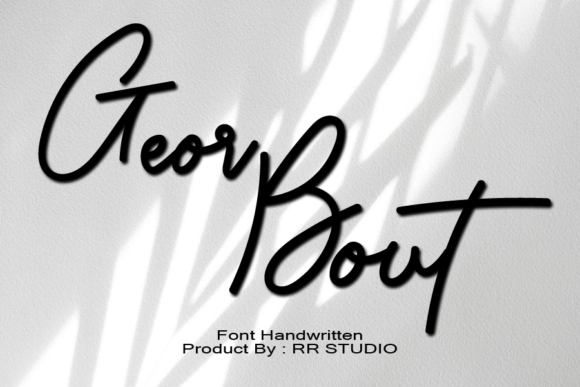
Indulge in the enchanting allure of Geor Bout, a script font that graces your designs with timeless elegance. Its meticulous craftsmanship, inspired by the fluidity of handwritten letters, adds a touch of authenticity to any project.
Escape the mundane and embrace the extraordinary with Geor Bout. Immerse yourself in its graceful curves and captivating ligatures, dancing across your creations like a symphony of ink. Whether you seek to craft an unforgettable logo, a captivating social media post, or a heartwarming invitation, Geor Bout becomes your trusted companion.
Let your imagination soar as you explore the endless possibilities Geor Bout presents. Its versatility knows no bounds, seamlessly adapting to the needs of calligraphers, designers, and creatives alike. Embellish your wedding invitations with its romantic charm, add a touch of whimsy to your scrapbook pages, or bring your brand to life with its timeless appeal.
Geor Bout is not merely a font; it's an invitation to express your individuality and make a statement. Its enchanting aura will captivate your audience, leaving an imprint of elegance and sophistication. Step into a world of creative freedom and let Geor Bout elevate your designs to new heights.